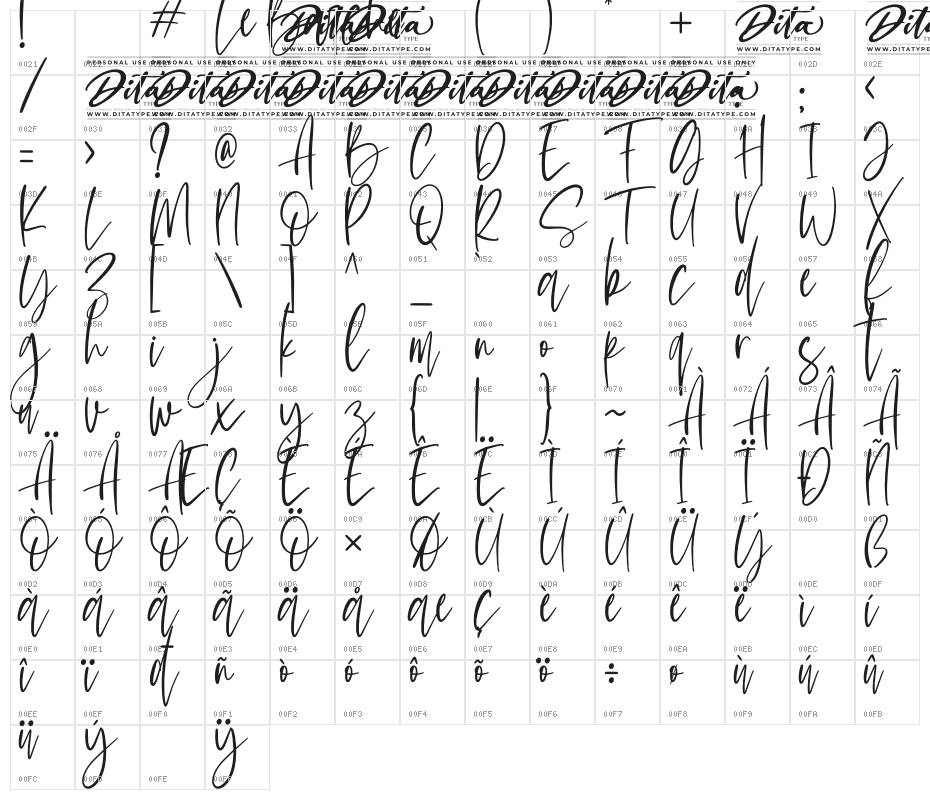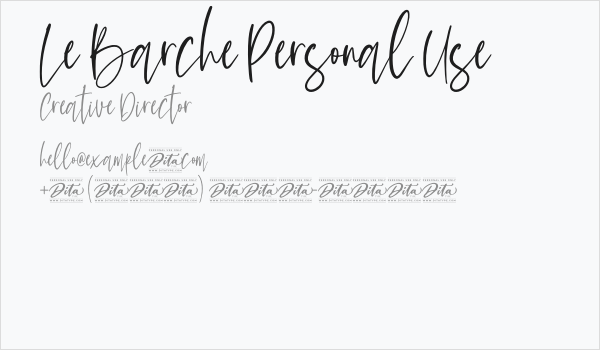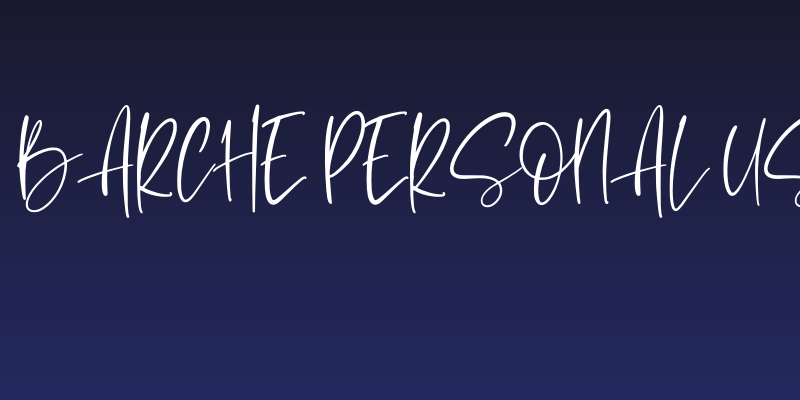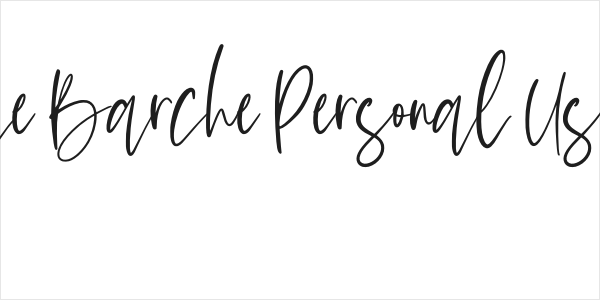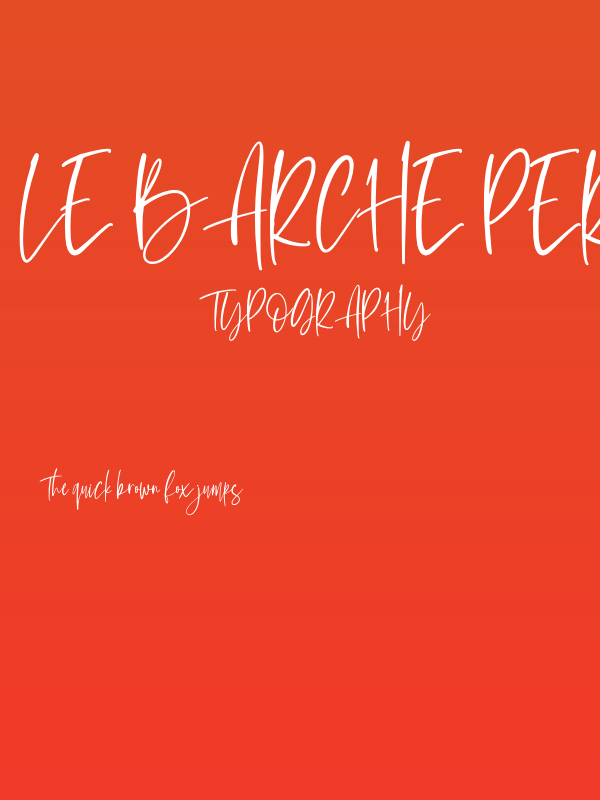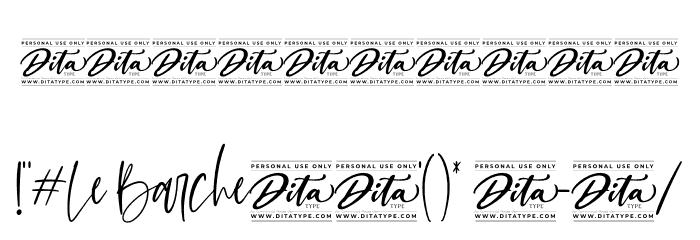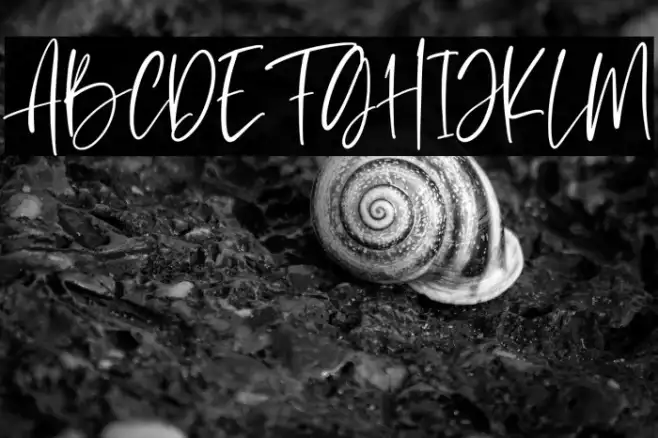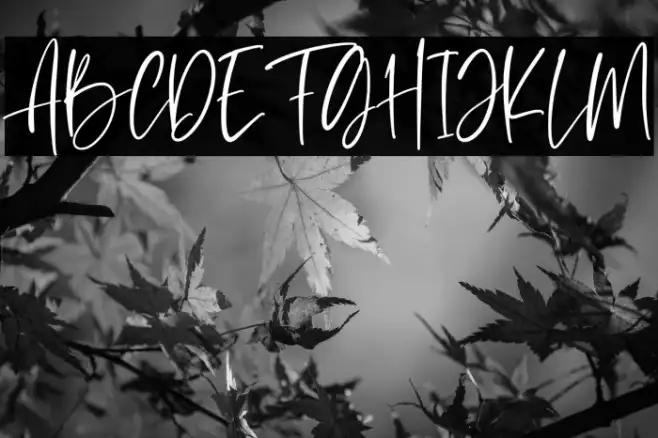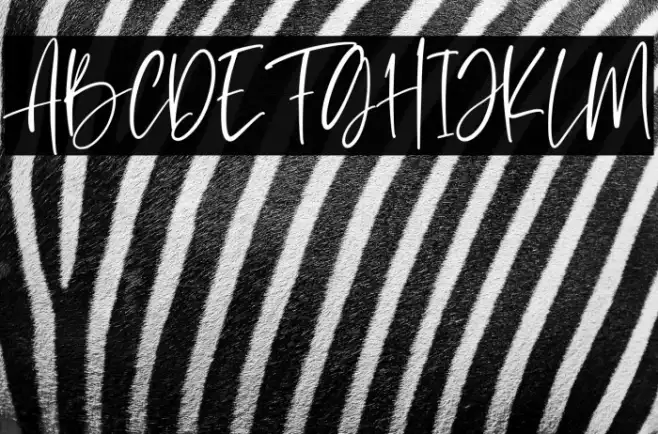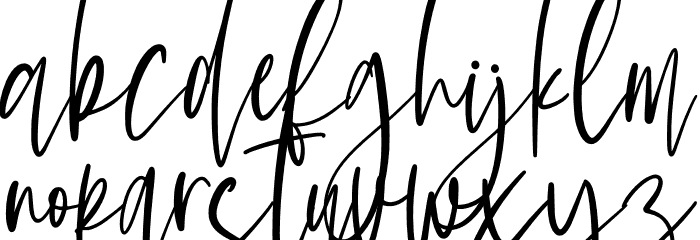
Le Barche Personal Use Font
Le Barche Personal Use Description
This font exhibits a dynamic and expressive handwritten style, characterized by fluid and elongated strokes that convey a sense of movement and personality. The uppercase letters are bold and slightly irregular, adding to the casual and artistic feel. The lowercase letters maintain a consistent flow, with some letters featuring loops and swashes that enhance the overall aesthetic. The numbers and special characters are designed to complement the alphabet, maintaining the same energetic and freeform style. This font is ideal for projects that require a personal touch or a creative flair.